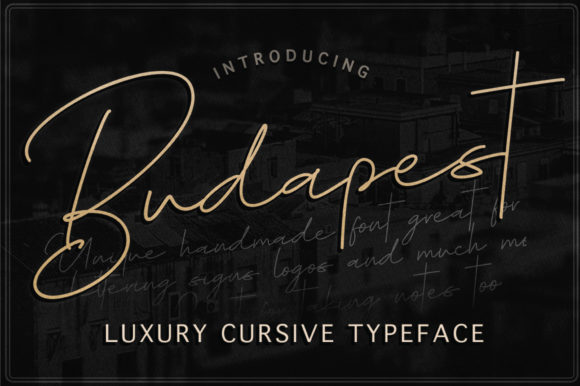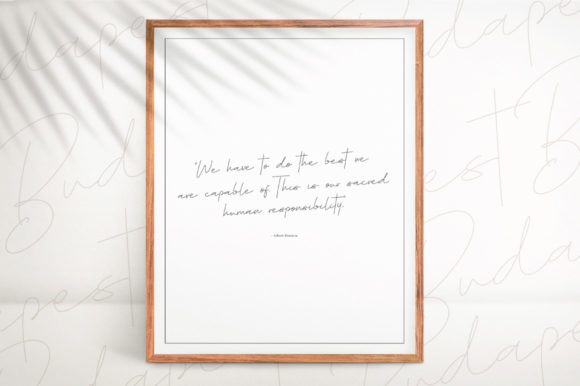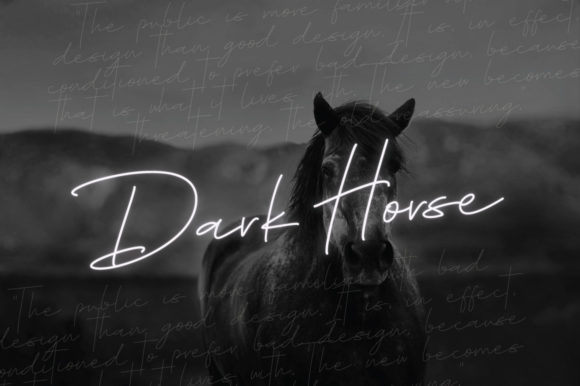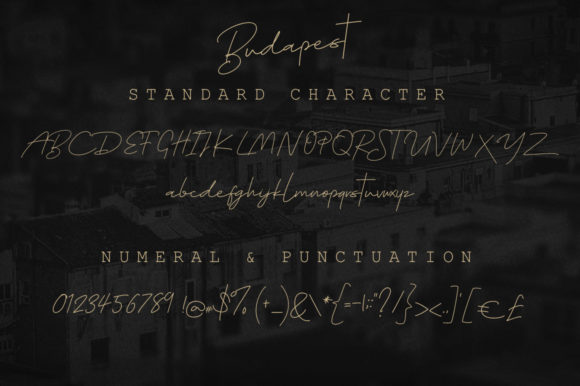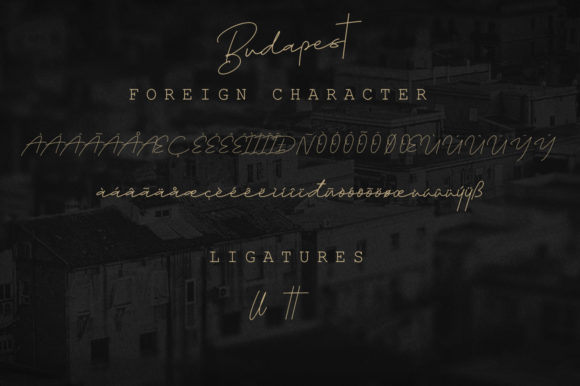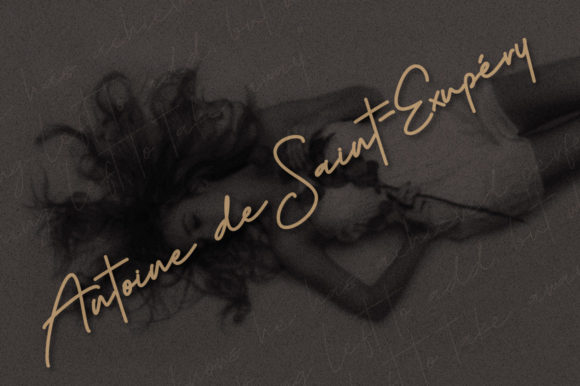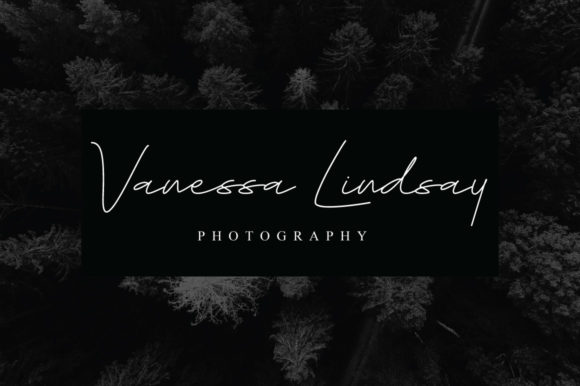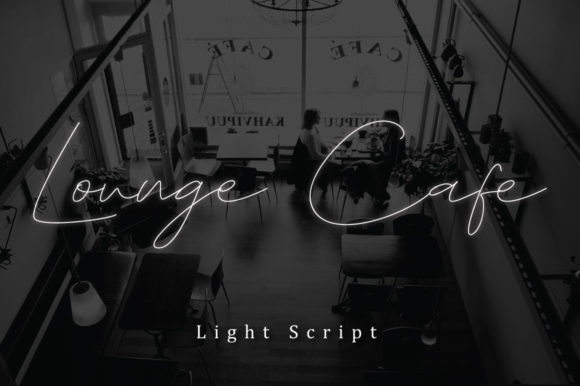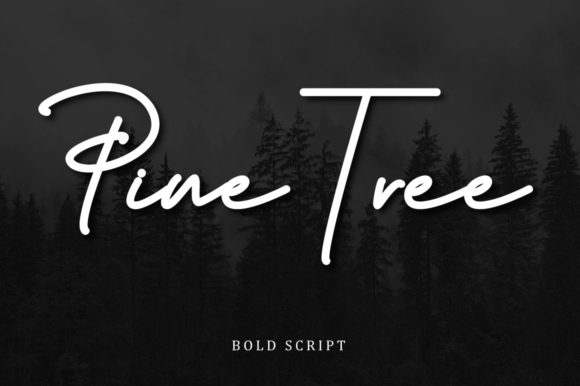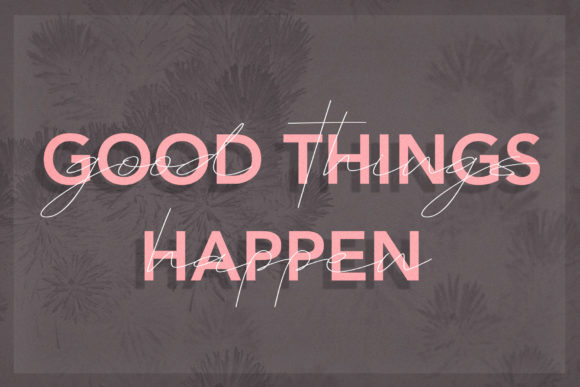
Budapest Family Font
About Budapest Family Font
The Budapest is an amazing family. It includes three luxurious styles which are perfect for personal branding, blogging, and much more!